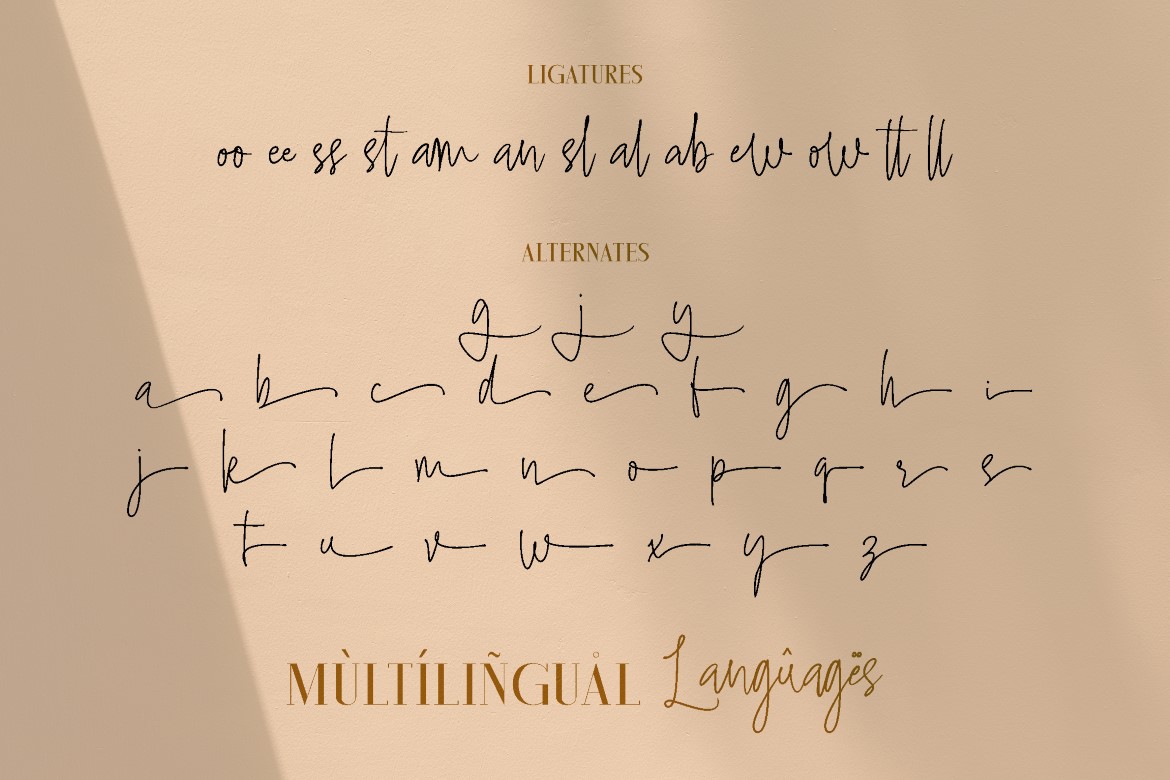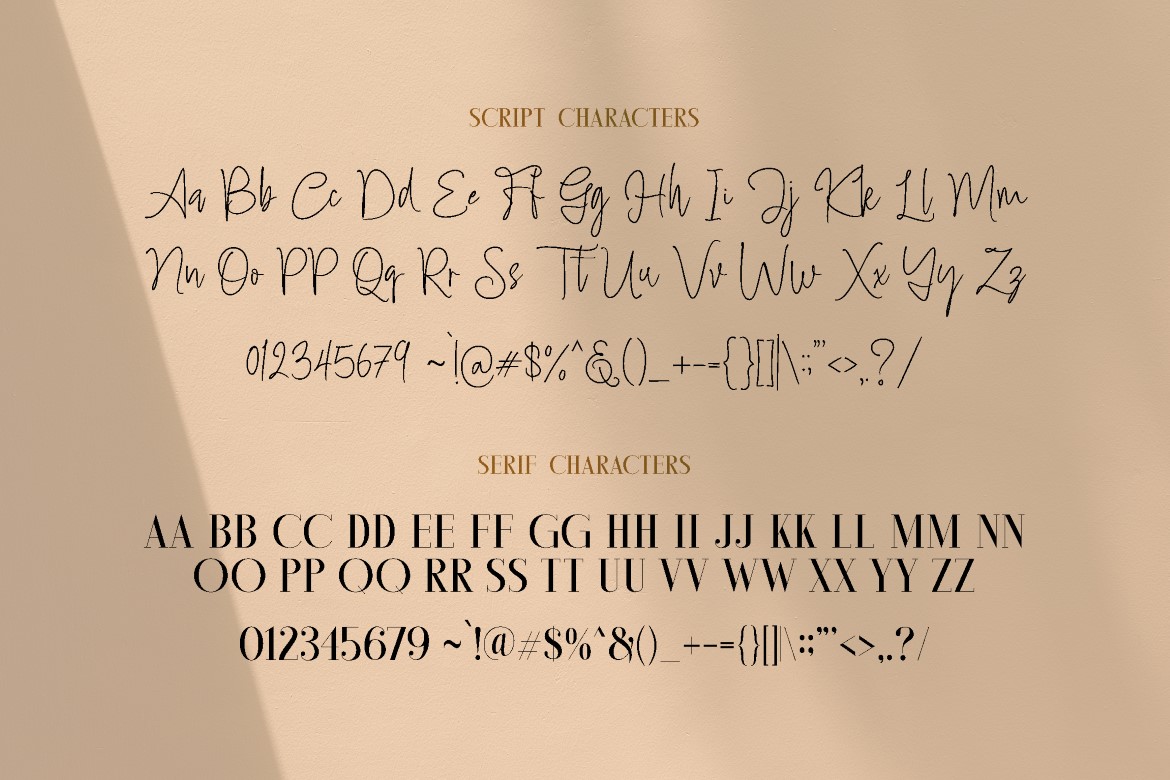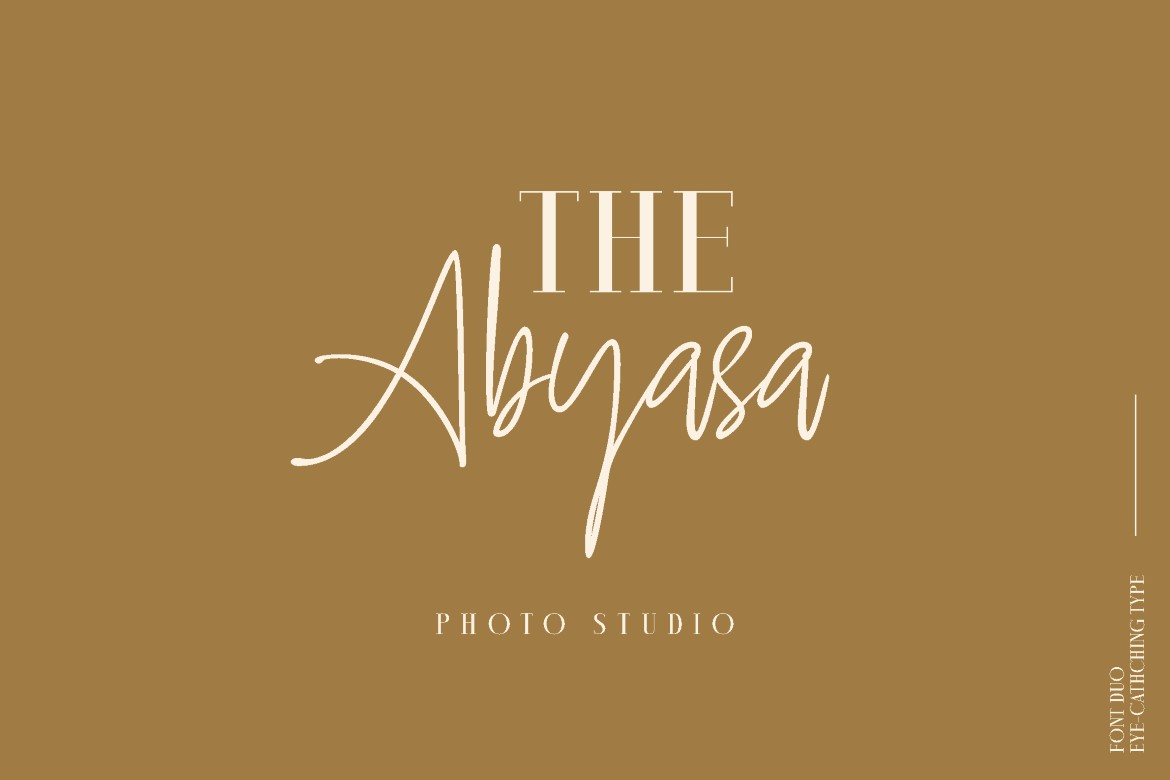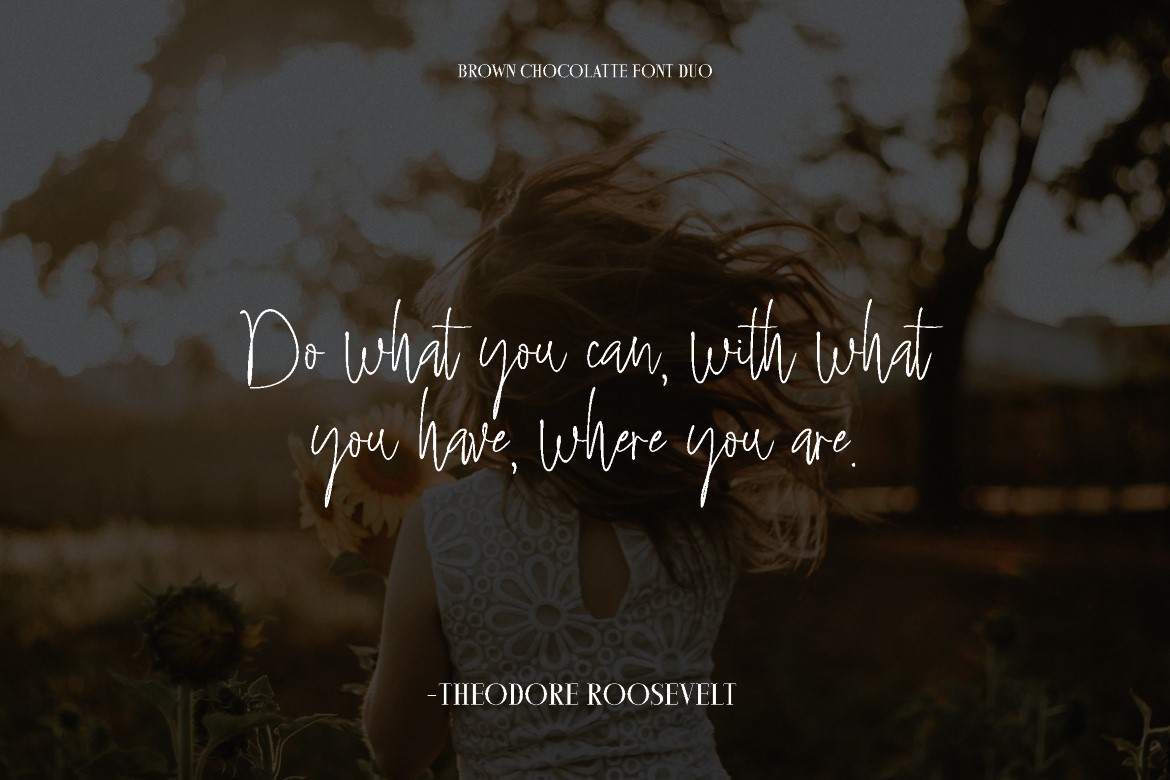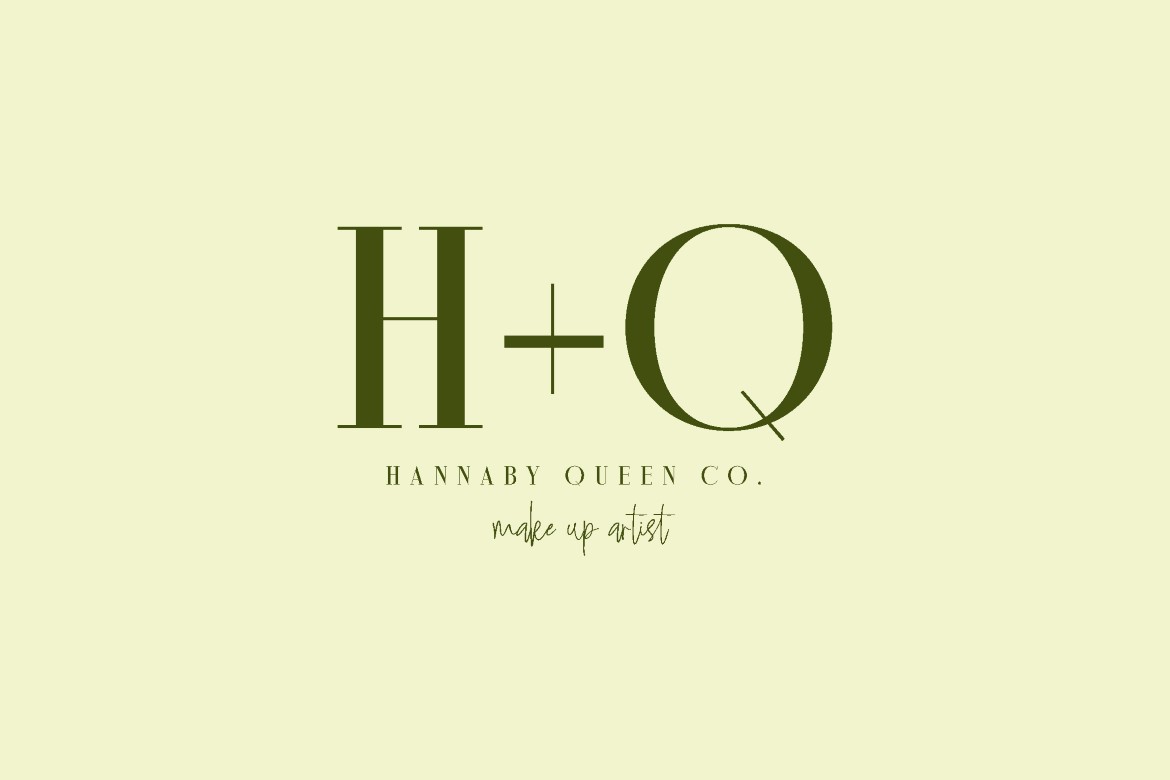
Brown Chocolatte Font Duo
Proudly presenting the Brown Chocolatte Font Duo, a sophisticated blend of elegance and charm. This font duo features two harmonious typefaces: Brown Chocolatte Serif and Brown Chocolatte Script, designed to elevate your branding and logo projects with a touch of refinement and creativity.
Brown Chocolatte Serif exudes timeless elegance with its bold, clean lines and classic structure. It's perfect for creating striking headlines, logos, and branding materials that demand attention and convey professionalism.
Brown Chocolatte Script brings a delightful contrast with its smooth, hand-lettered style. Its graceful curves and flowing lines add a personal, artistic touch to your designs, making it ideal for signature logos, stylish branding, and decorative elements.
Whether used together or separately, the Brown Chocolatte Font Duo offers endless creative possibilities. The seamless pairing of serif and script allows you to effortlessly create a cohesive and visually appealing design.
Key Features:
• Two Complementary Styles: Brown Chocolatte Serif and Brown Chocolatte Script.
• Versatile Application: Ideal for logos, branding, packaging, and more.
• Elegant and Sophisticated: Classic serif paired with an artistic script.
• Creative Flexibility: Use together or separately for unique design combinations.
• High-Quality Design: Carefully crafted for professional use.
Elevate your projects with the Brown Chocolatte Font Duo, perfect for designers and creatives looking to add a touch of sophistication and charm to their work.